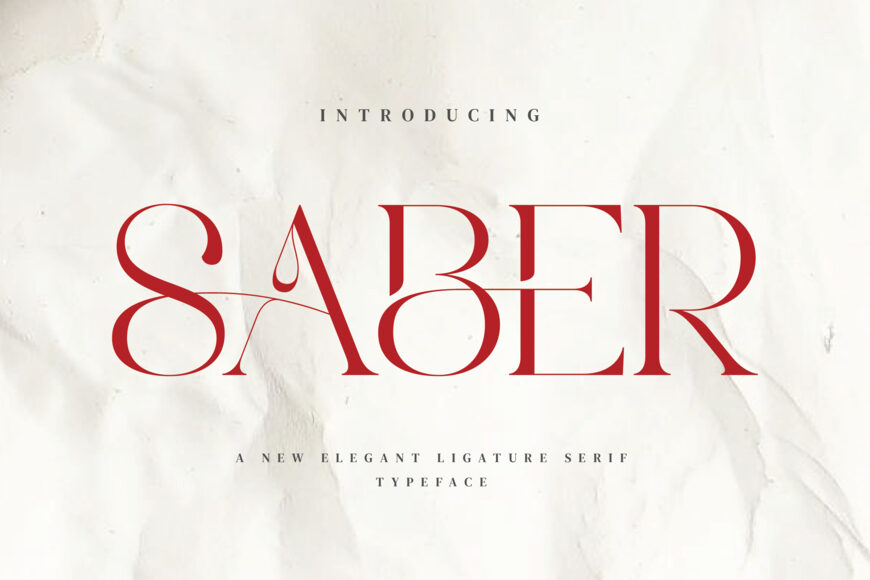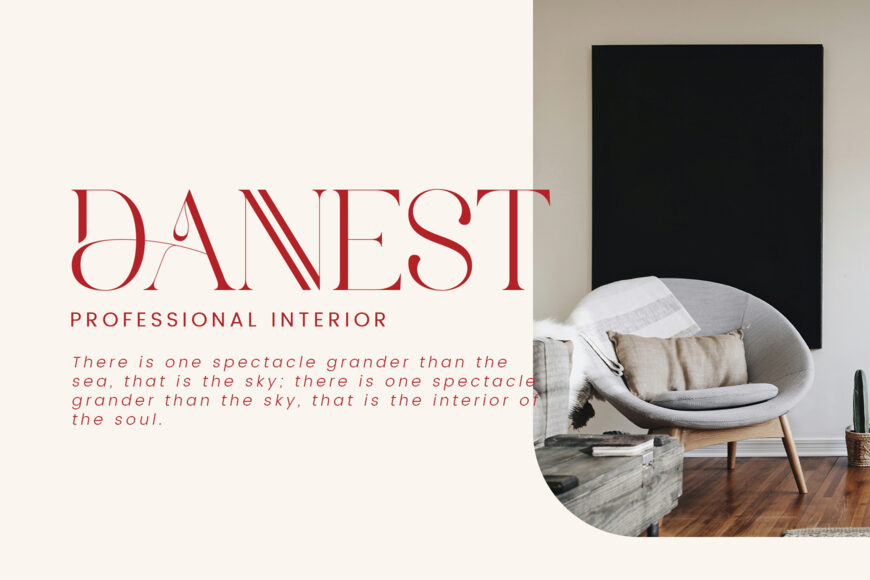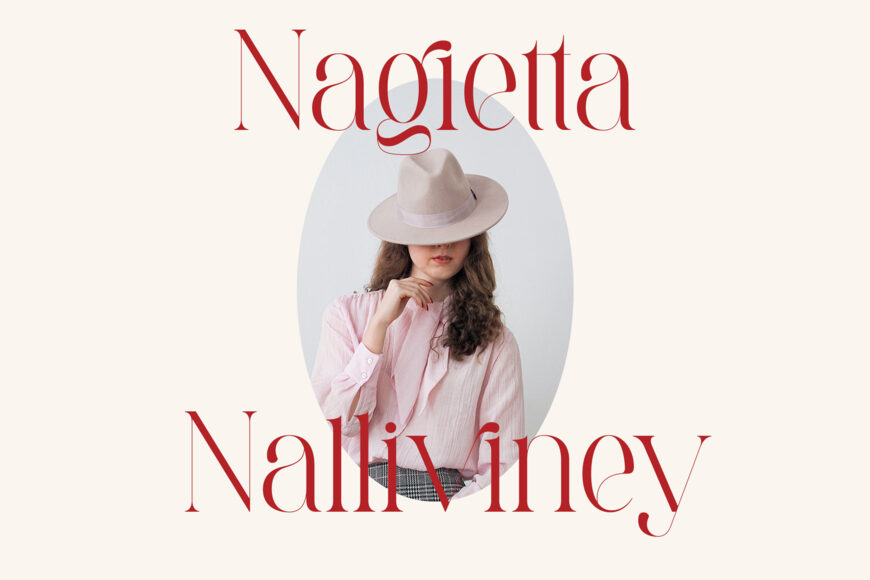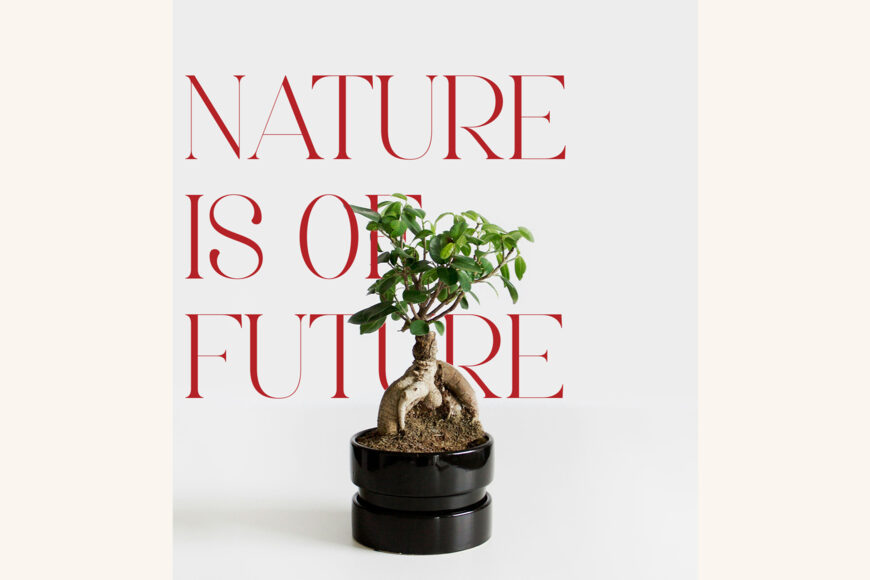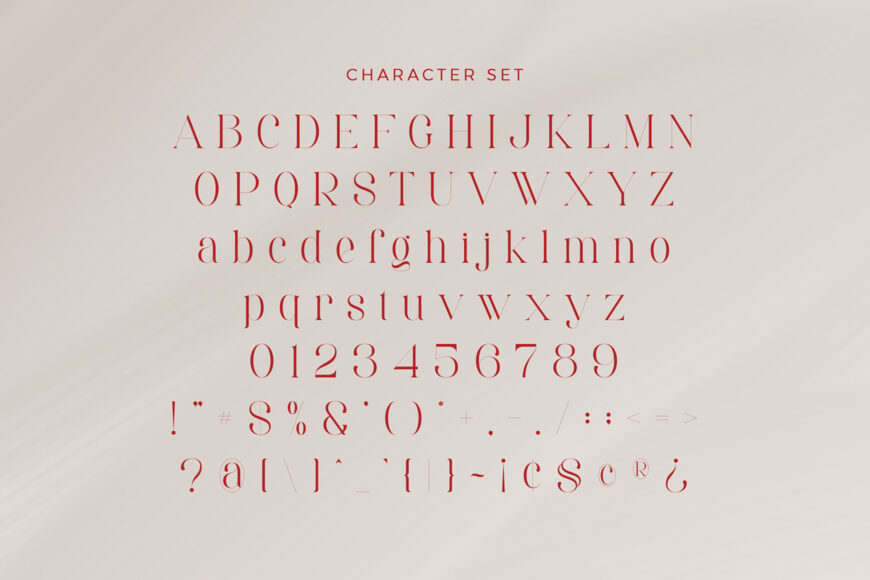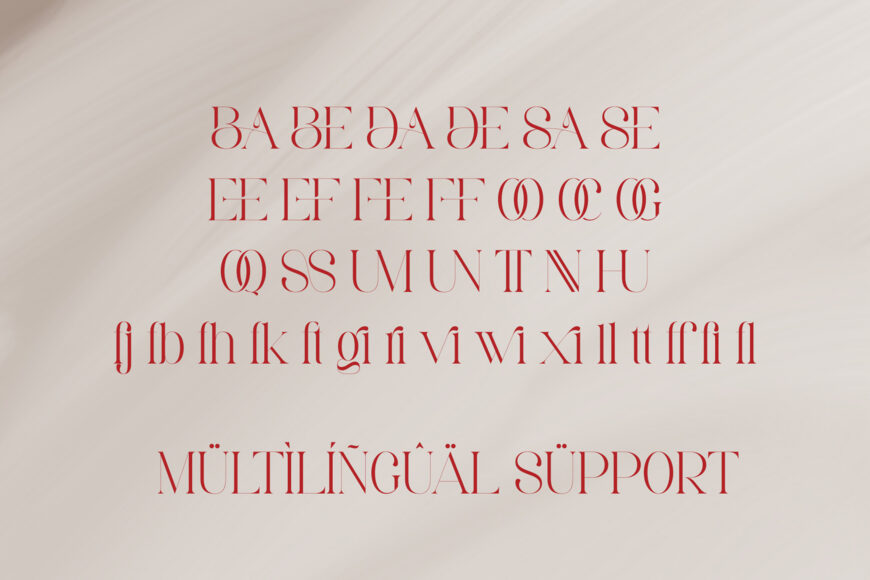
Saber Font
Saber is an elegant serif font that combines a modern feel with vintage-inspired details. Its refined letterforms, stylish ligatures, and alternate characters give designs a sophisticated and distinctive appearance. Ideal for logos, wedding invitations, branding, headlines, and elegant editorial projects, Saber adds a polished and timeless touch to both personal and creative designs.